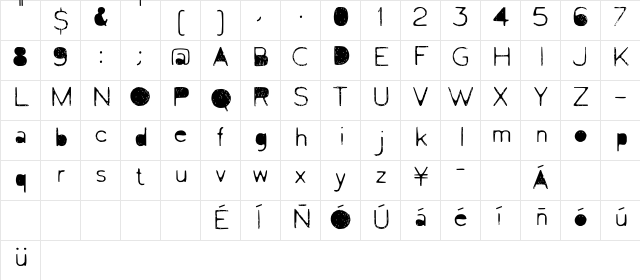
Letrograda Regular
Design Context for Letrograda Typeface
Letrograda takes a measured approach to typography — its balanced proportions and neutral character make it a reliable workhorse for both digital and print work.